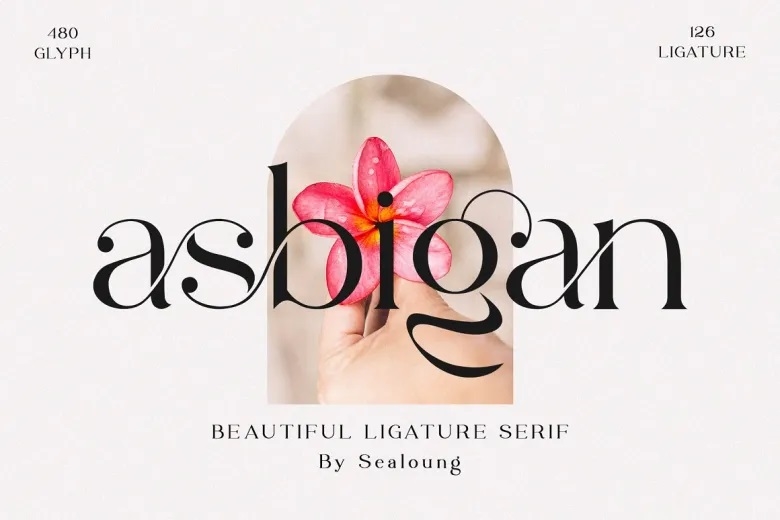
Asbigan Font
Asbigan is an elegant font that can create a beautiful image when they used to logo and brand designs. In the past while working for different companies as the graphic designers, this type of font gives us leverage to create unique yet classy logos that are unique.
That is why we try our best in designing and thinking about what we want to create in real life. By branding and or logo designing with this font, you using this font will make elegant, pretty, beautiful logos 126 lovely LIGATURES.
Asbigan Serif Font